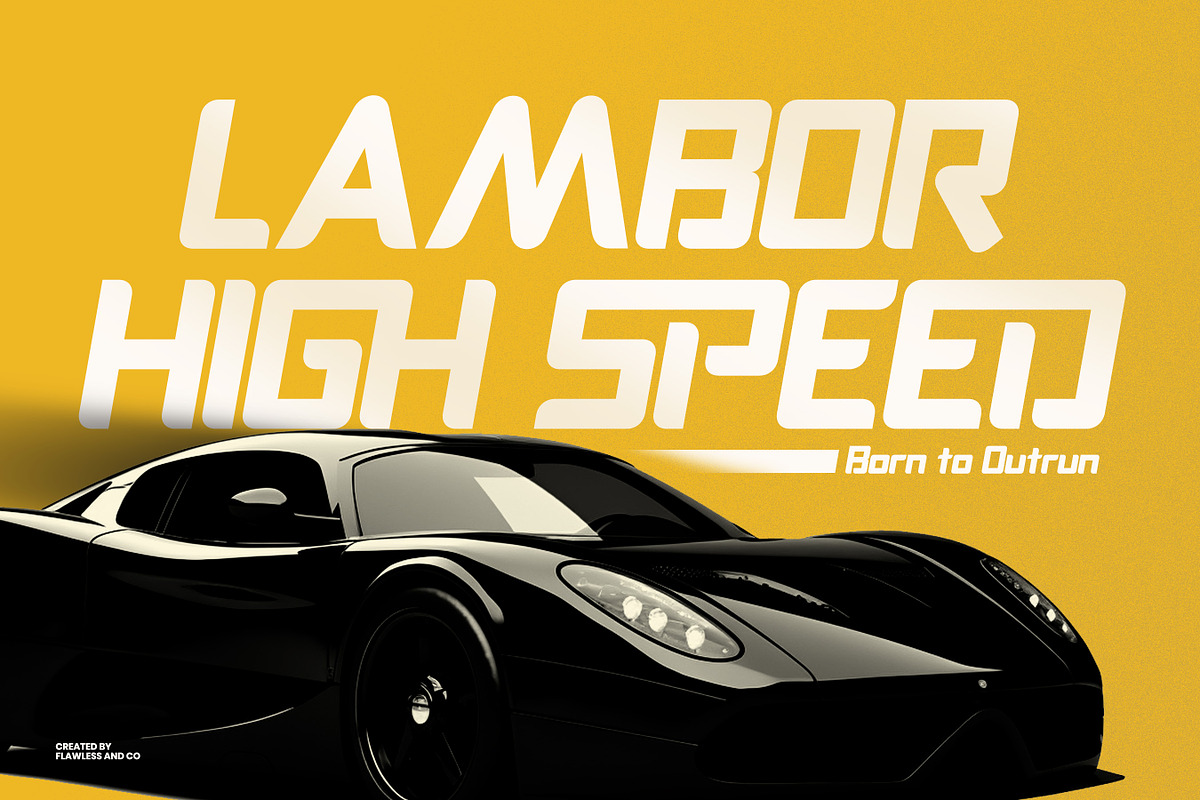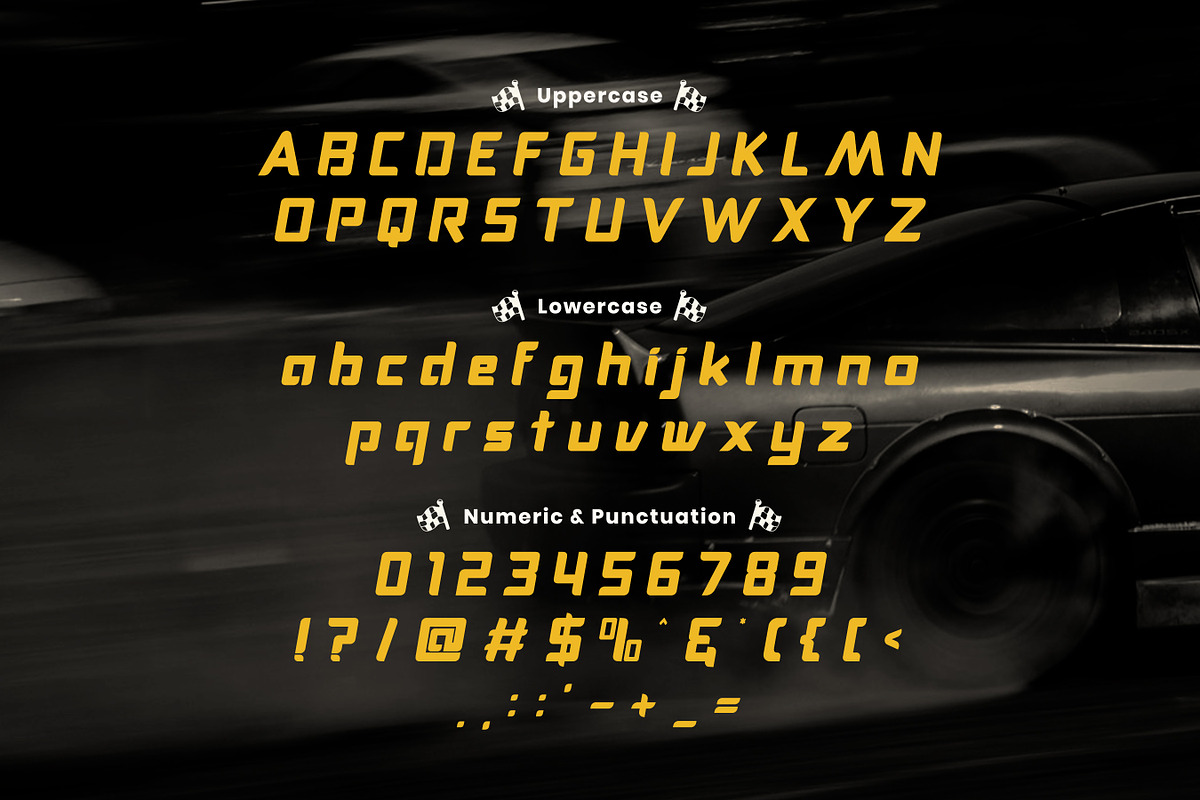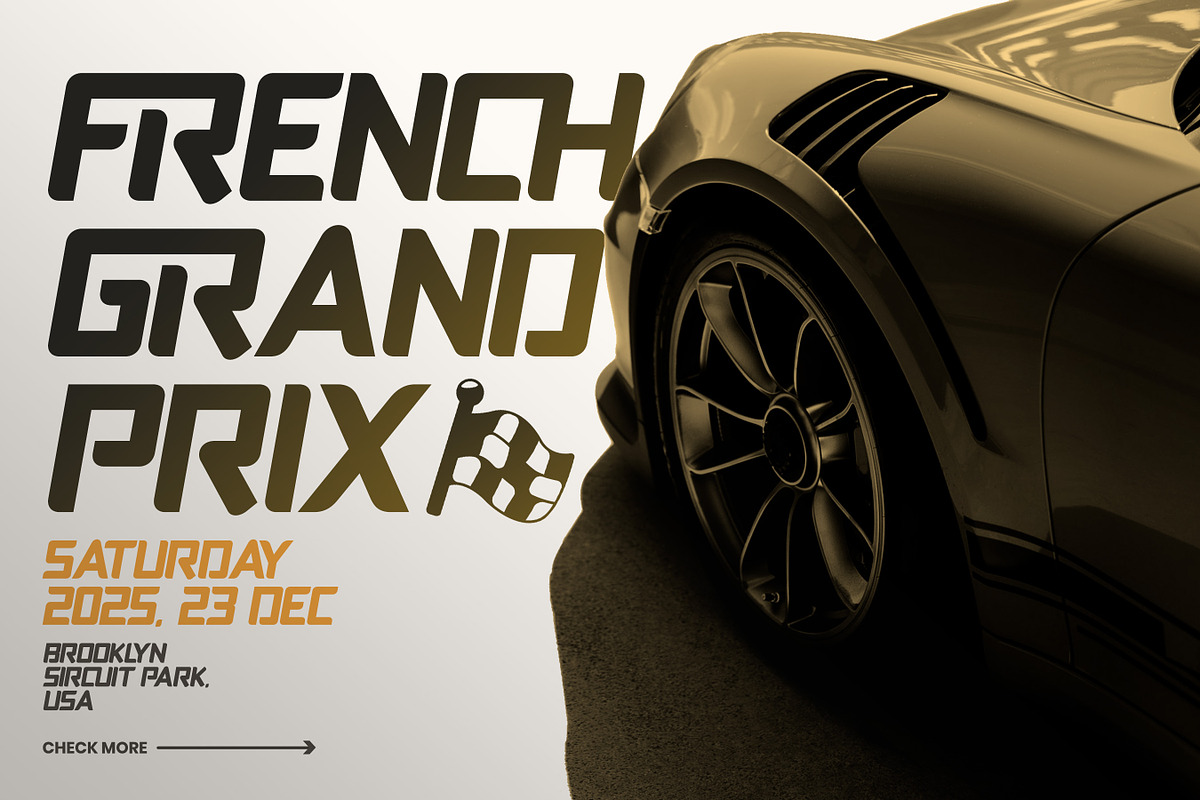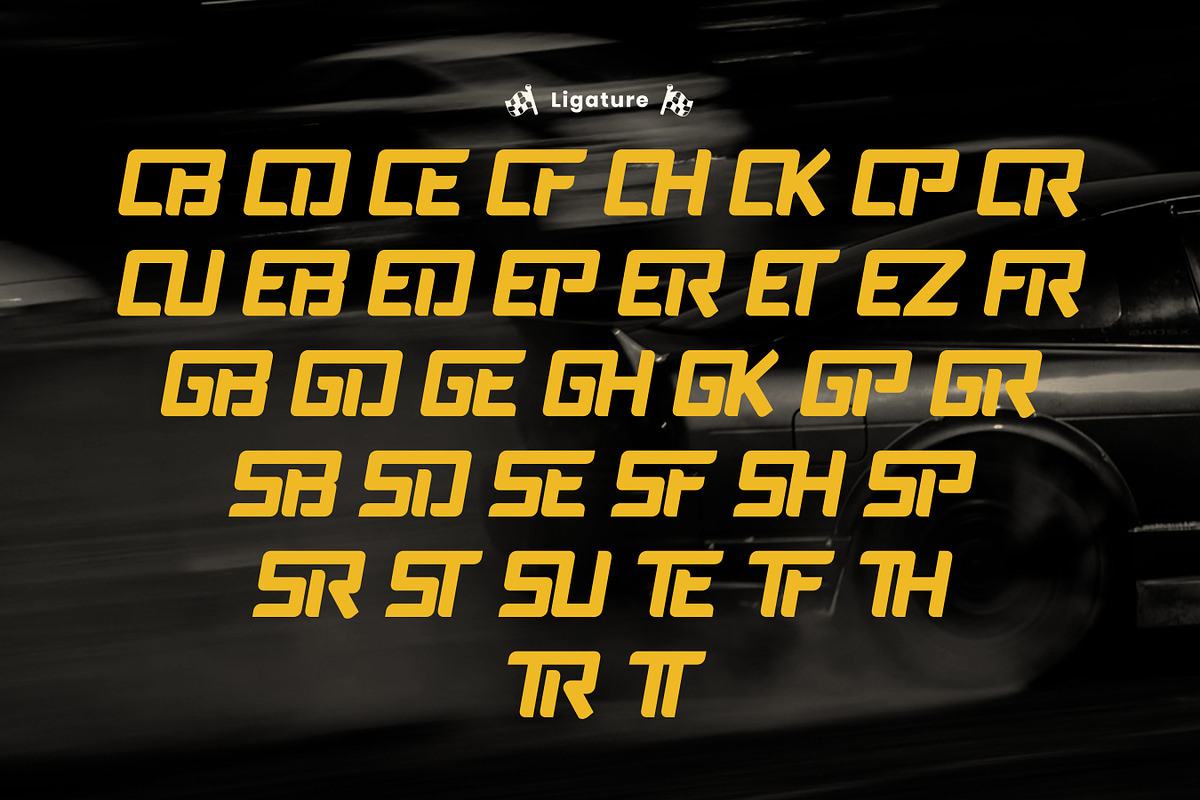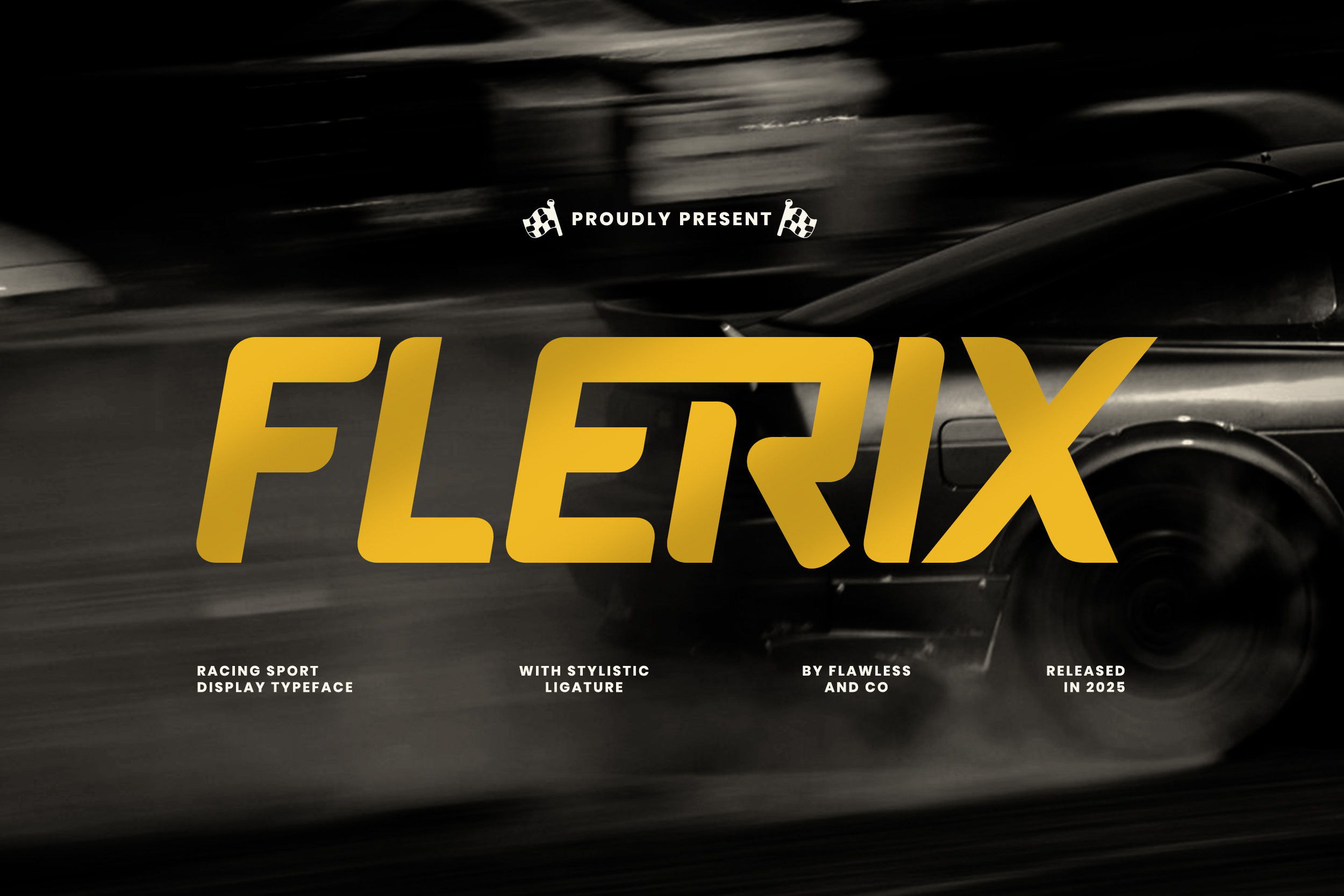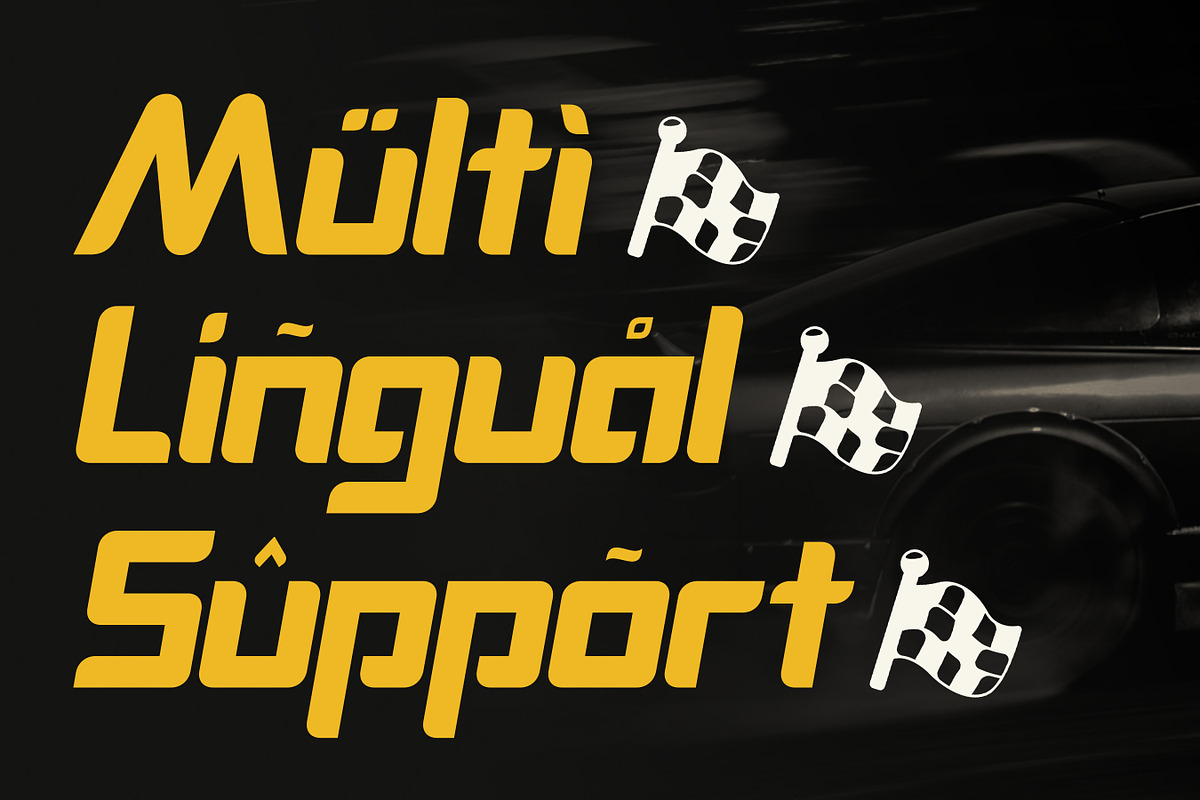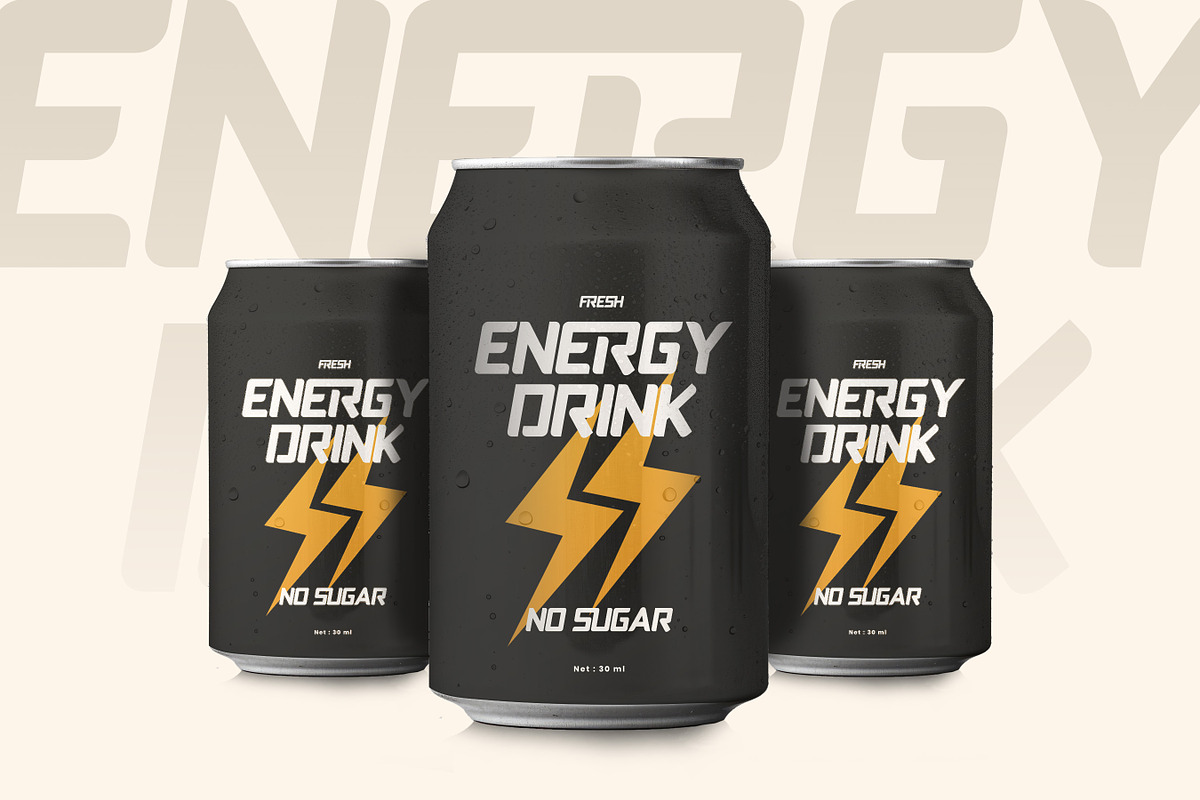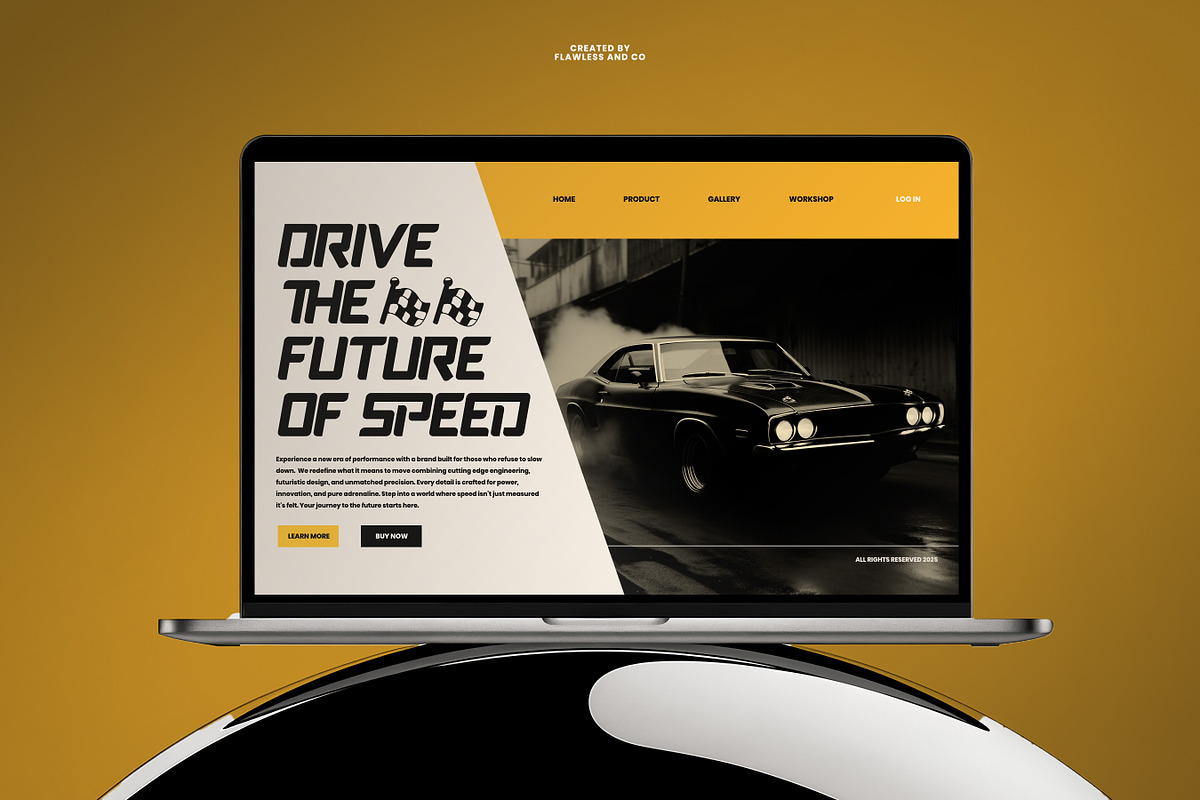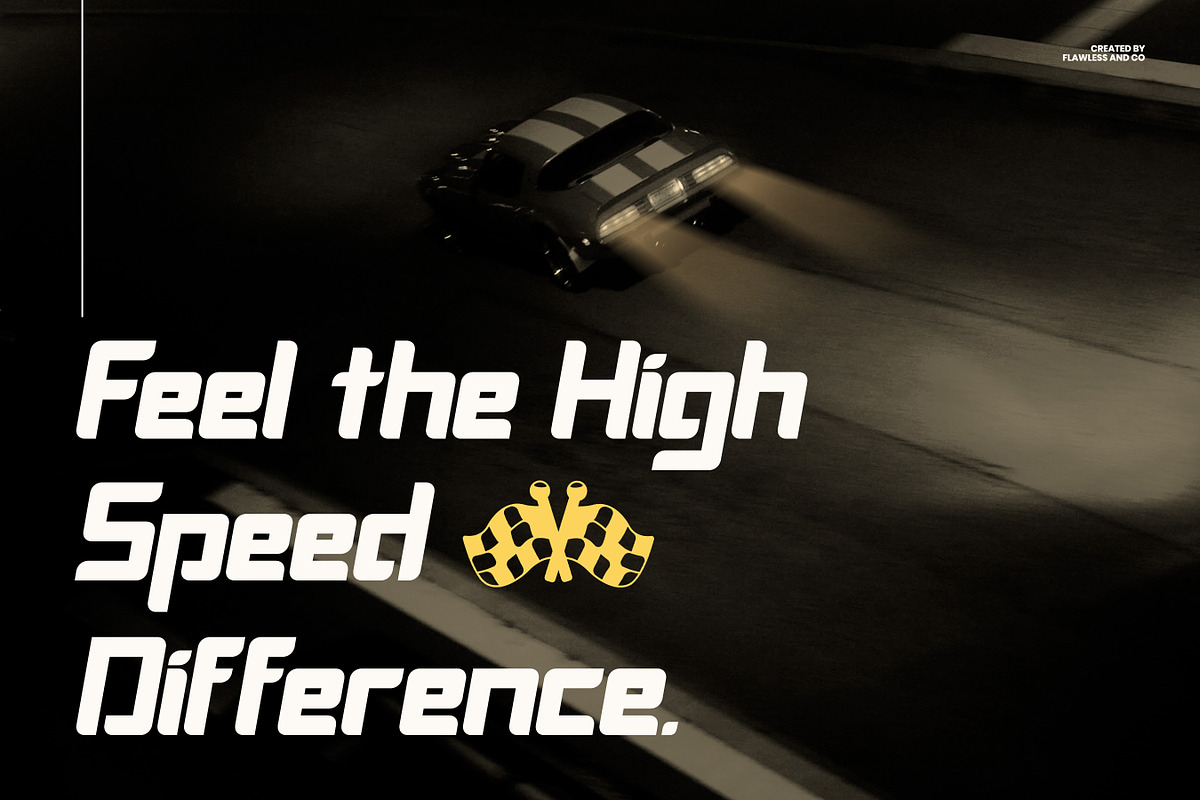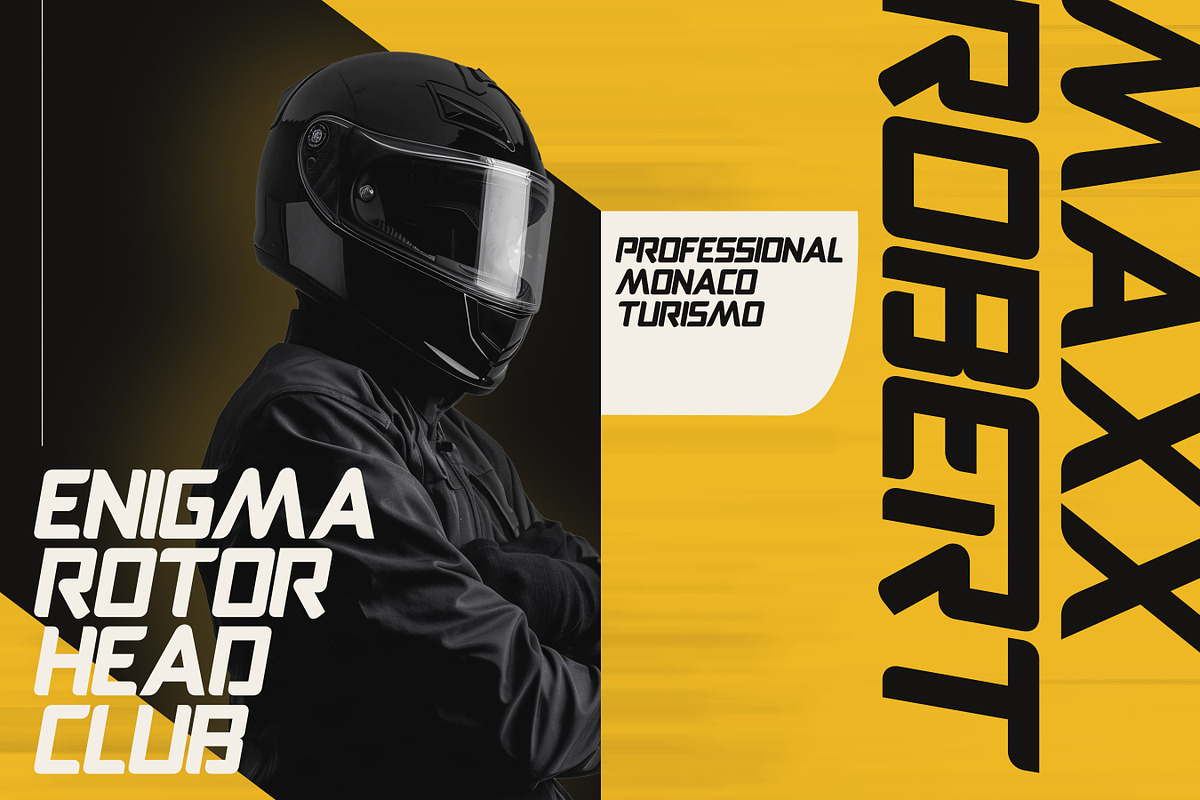
Flerix - Racing Sport Display Font
Flerix is a high-speed racing display font built to inject adrenaline, power, and motion into every design. With its aerodynamic letterforms, sharp curves, and dynamic slanted cuts, Flerix creates the sensation of speed even in a static layout — making every word feel fast, competitive, and unstoppable. This typeface embodies the spirit of racing, performance, and automotive energy, perfect for projects that demand a modern and action-driven visual identity.
Who Should Use Flerix?
Flerix is perfect for designers, brands, and creators who want their visuals to feel fast, competitive, and full of high-performance energy. Whether you’re building identities for motorsport teams, automotive products, or adrenaline-driven industries, this font delivers a strong and impactful racing attitude. From sports designers and logo creators to merchandise producers and event promoters, anyone who wants typography that screams speed, power, and motion will find Flerix an irresistible choice.
A Must-Have Font for Brand and Logo Creators and Designers
Flerix is the kind of font every brand and logo designer needs when the goal is to create visuals that look fast, fierce, and unforgettable. Its aerodynamic curves and bold racing attitude instantly transform any concept into a high-performance identity built for dominance.
Why Choose Flerix for Brand and Logo Projects?
ts racing-inspired shapes and bold streamlined forms instantly create a visual identity that feels fast, competitive, and full of adrenaline. Every letter carries motion and confidence, making logos look more dominant and memorable across digital and physical media. If you want branding that stands out with high performance and a winning attitude, Flerix is the perfect choice.
Suitable For:
- Logo design and branding projects
- Product packaging and label design
- Fashion and lifestyle branding
- Bold headlines and advertising
- Website headers and social media graphics
- Modern editorial and print materials